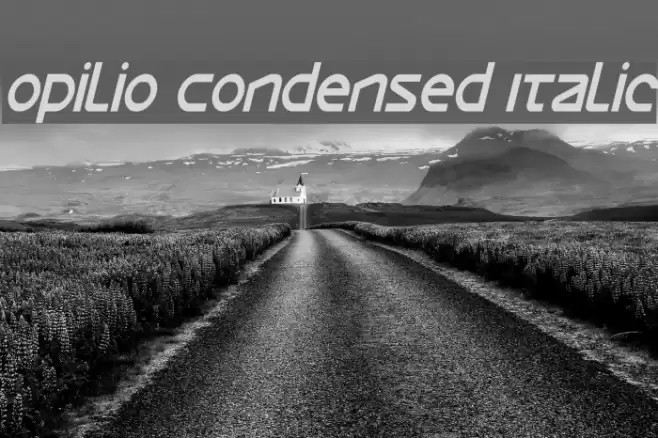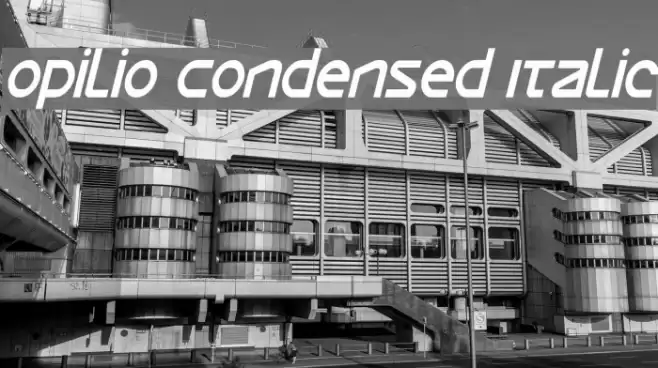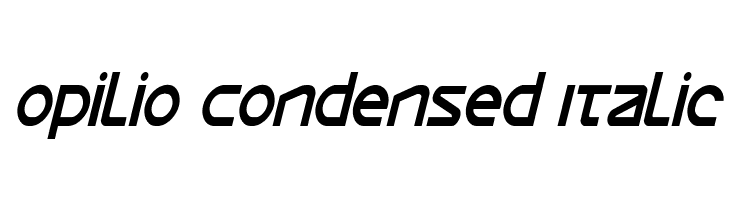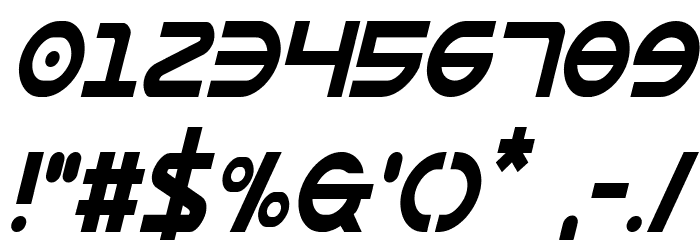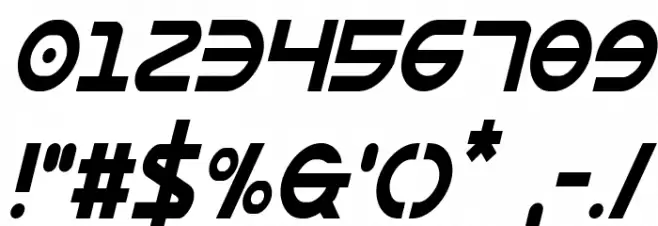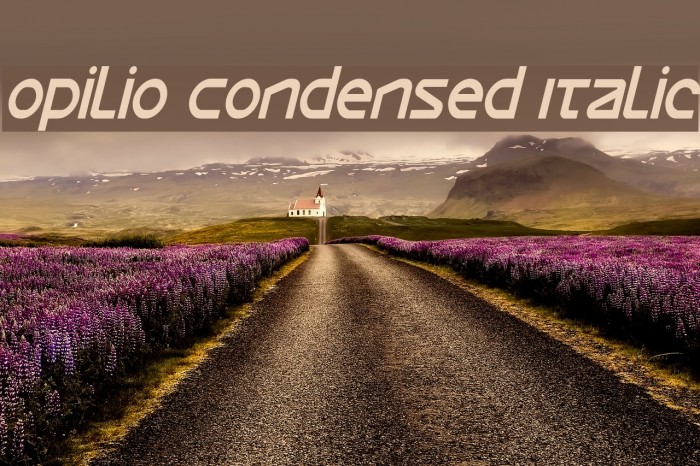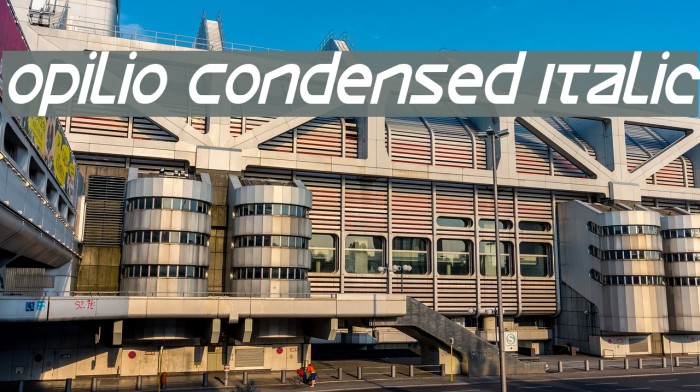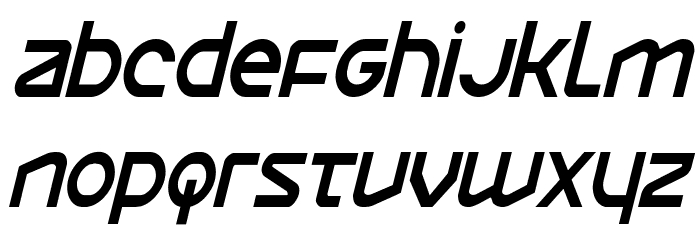
Opilio Condensed Italic Font
Opilio Condensed Italic Description
This font features a modern, italicized style with a condensed width, giving it a sleek and dynamic appearance. The characters are slightly slanted, enhancing the sense of movement and fluidity. The design incorporates sharp angles and clean lines, contributing to its contemporary aesthetic. The numerals and special characters maintain the same angular style, ensuring consistency across all glyphs. This font is well-suited for projects that require a modern and energetic feel, such as sports branding or tech-related designs.
A modern, italicized, and condensed font with sharp angles and a dynamic style from Uncategorized fonts.
- Proposed Projects: Ideal for sports branding, tech-related designs, modern advertising, and dynamic logos.